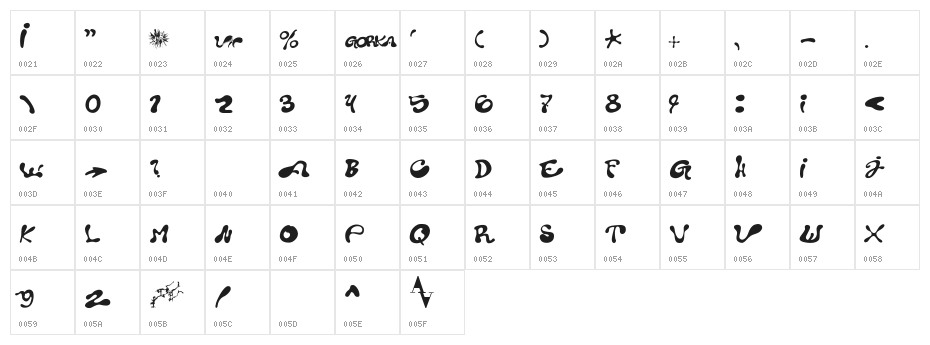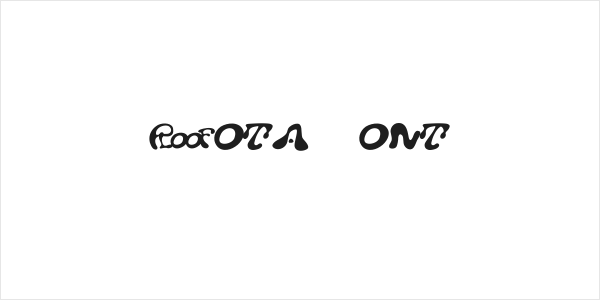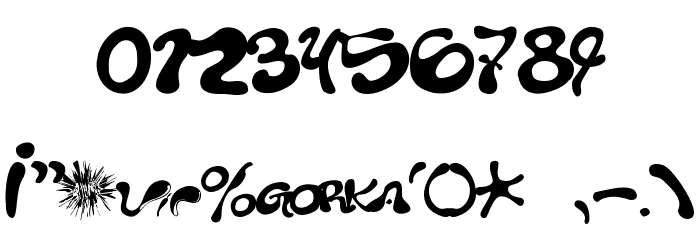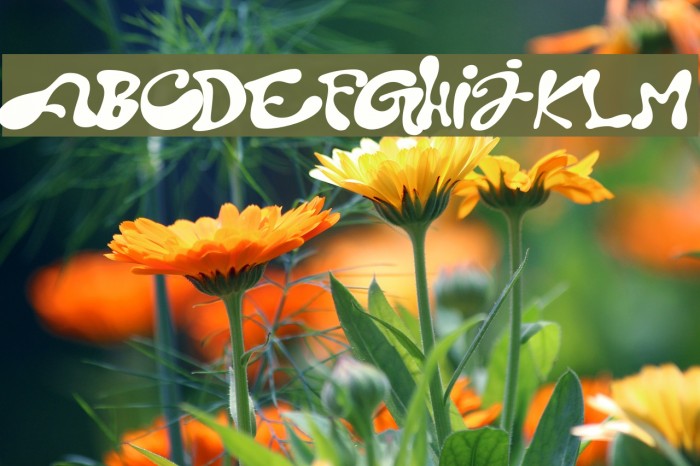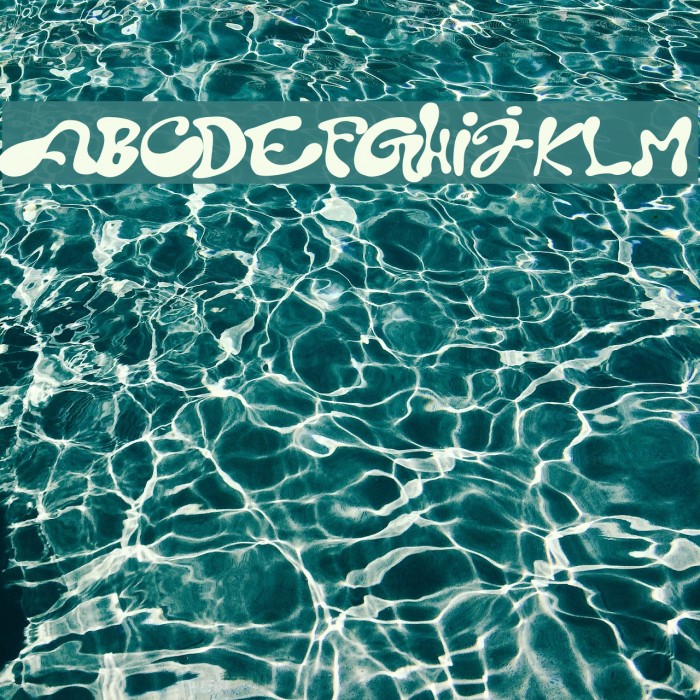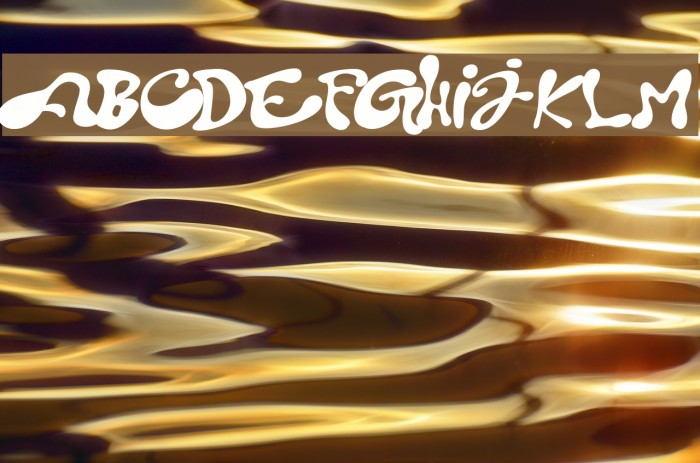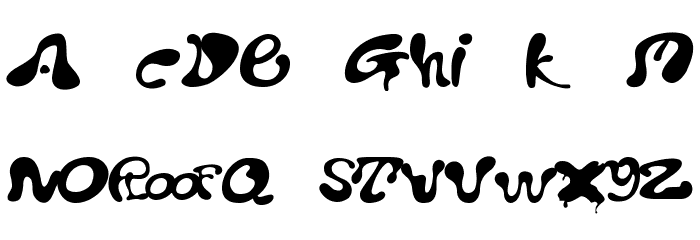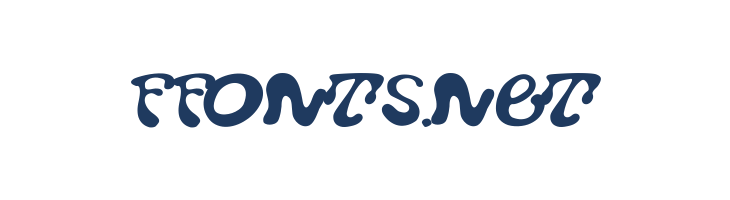
pota font Font
This font features a highly decorative and abstract style, characterized by its fluid, organic shapes that resemble ink blots or liquid forms. The letters are bold and have a playful, almost whimsical appearance, with varying stroke thickness that creates a dynamic and lively effect. The characters are not uniform, with some having exaggerated curves and others appearing more compact, adding to the overall artistic and unconventional look. This font is visually striking and commands attention, making it suitable for creative and expressive design projects.
| Use Case | Headlines, Logos, Artistic projects |
| Proposed Projects | Ideal for artistic posters, album covers, creative branding, and any project requiring a unique and eye-catching typeface. |